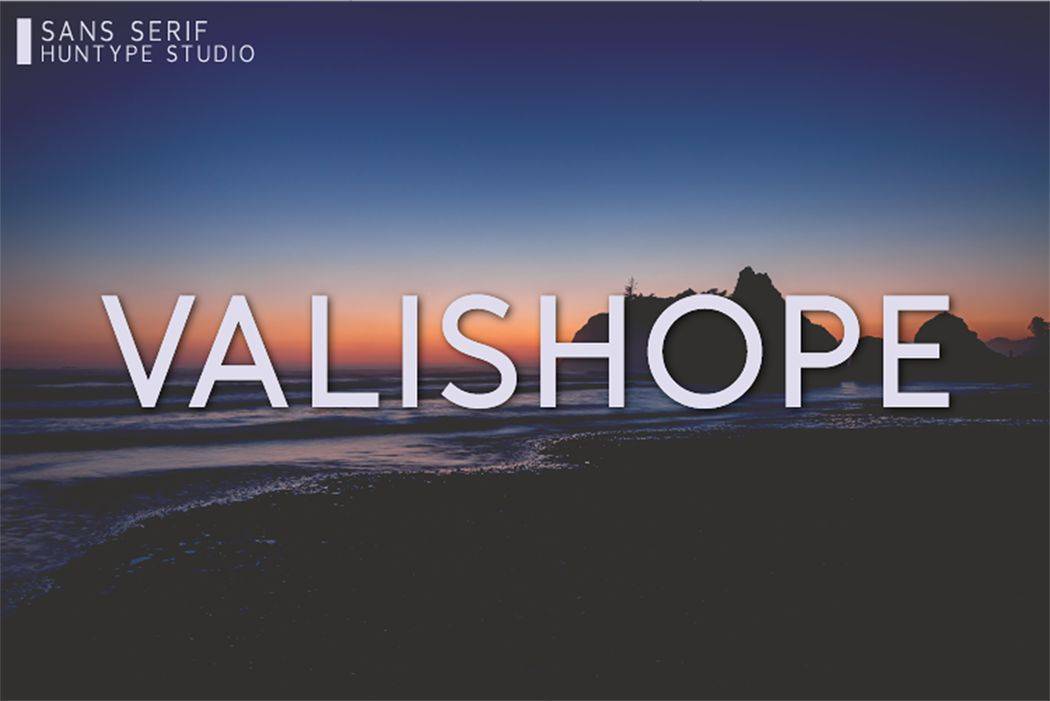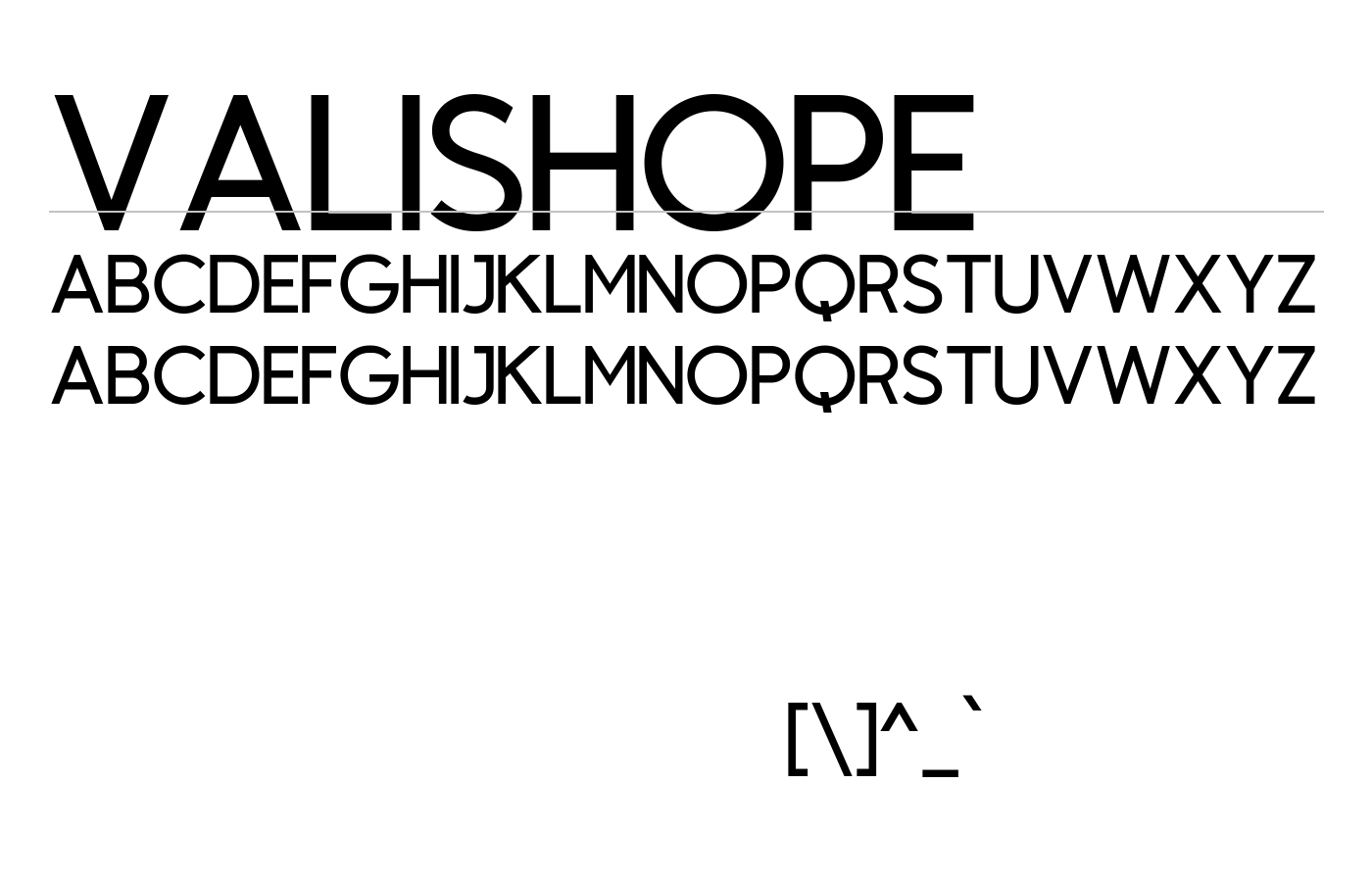
Valishope is a clean, modern sans serif font that features a sleek, geometric design with medium contrast and a normal width. Its sharp angles and uniform strokes give it a contemporary and professional feel, making it ideal for branding, headlines, and editorial use where clarity and sophistication are needed. This font works well for technology, corporate, and minimalist design projects seeking a polished yet approachable look.
Valishope Font
About Valishope Font
| Font family | Valishope Font |